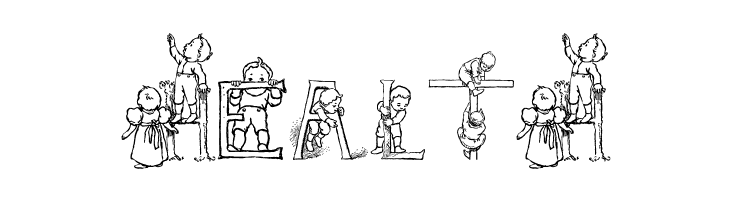
Hand-drawn, museum-themed decorative font with illustrated characters.
A decorative insect-themed dingbat font with detailed bug illustrations.
Ancient pictographic decorative font with illustrative symbols.
Playful and whimsical icons representing various sports and activities.
Illustrative depictions of sports training activities.
A collection of detailed agricultural-themed icons and symbols.
An anatomical dingbat font with detailed human body illustrations.
A decorative collection of book-themed illustrations.
Intricate glyphs inspired by ancient Mayan script, featuring detailed and artistic designs.
A playful set of pictograms featuring a jester character in dynamic poses.
Cartoonish, school-themed decorative font with illustrated characters.
Pictogram-based decorative font with ancient and archaeological motifs.
A fine arts-themed decorative dingbat font with detailed art-related icons.
Highly decorative music-themed pictorial font.
Minimalist cartoon figures form each glyph in a playful, illustrative style.
Hand-drawn hieroglyphic-inspired decorative font with sketchy lines.
A display font featuring illustrated birds and owls as characters.
A decorative set of American-themed illustrations instead of a traditional font.
A playful font with letters formed by illustrations of children in various activities.
A decorative font with cartoonish Egyptian-themed illustrations.
A pictorial, decorative font mimicking ancient cave art and petroglyphs.
A decorative font featuring detailed illustrations of ancient artifacts and motifs.
A collection of intricate Madhubani art illustrations.
A bold pictogram dingbat font featuring diverse icons and symbols.
A display font featuring bird illustrations as characters.
A whimsical set of abstract, cave art-inspired symbols within diamond shapes.
A collection of illustrated scenes and characters inspired by early 20th-century life, not a traditional font.